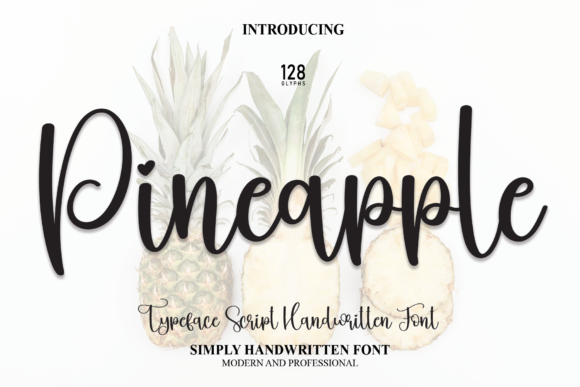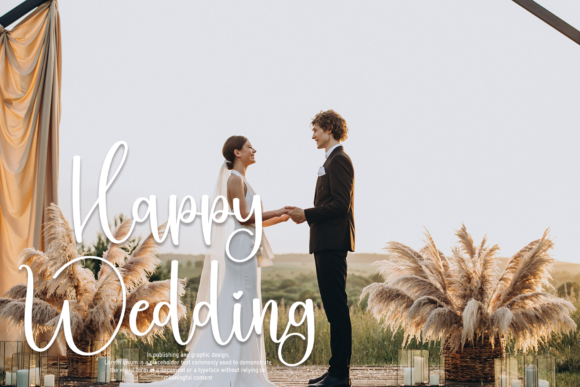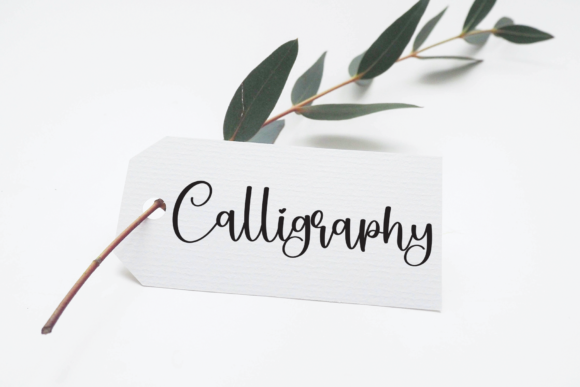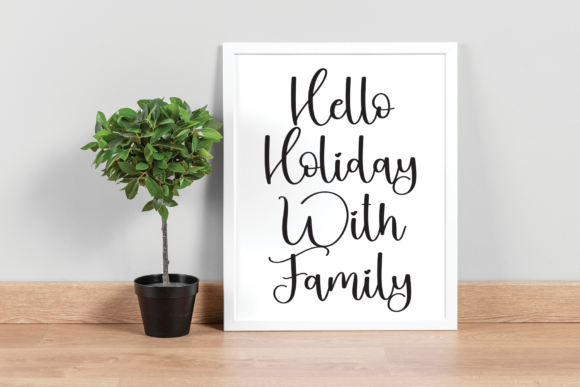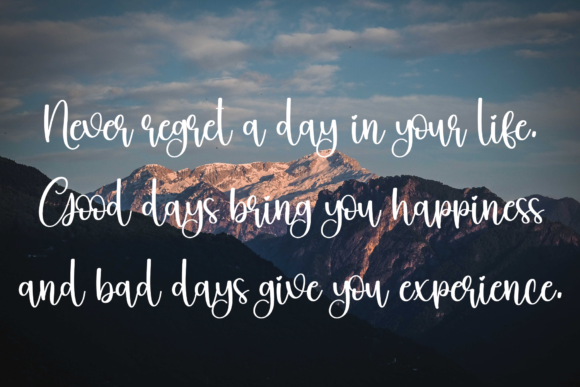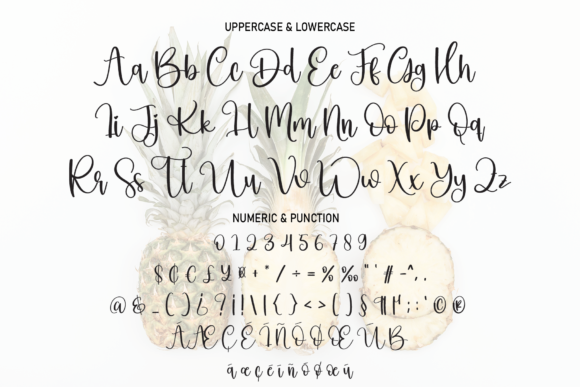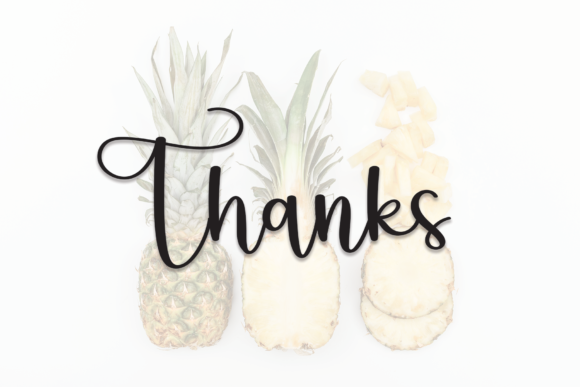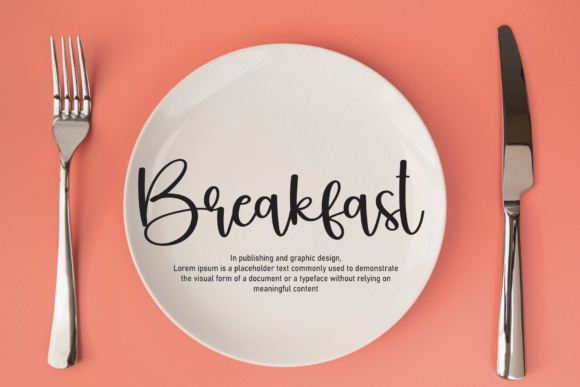
Pineapple Font
The Pineapple font is a delightful and versatile typeface, crafted for a wide array of design applications. With letters that exude a handwritten charm, this font is the perfect choice for enhancing the visual appeal of diverse projects. Whether you’re working on wall displays, wedding invitations, social media post logos, advertisements, product packaging, product designs, labels, photography, watermarks, invitations, stationery, or any project that demands a personalized touch, Pineapple effortlessly adds a tasteful and unique flair.
In the realm of wall displays, the Pineapple font brings a touch of character and authenticity, creating visually appealing presentations. For wedding invitations, its handwritten charm imparts a sense of warmth and individuality, setting the tone for a memorable event. In social media post logos, the font becomes a distinctive element that ensures brand recognition and a personalized touch.
When used in advertisements, Pineapple captures attention with its stylish and approachable handwritten aesthetic. In product packaging and designs, it adds a layer of craftsmanship and uniqueness, making the product stand out on the shelf. Labels benefit from the font’s ability to convey a sense of authenticity and creativity, while watermarks and photography applications showcase its versatility in various visual contexts.
Invitations and stationery projects are elevated by Pineapple, as it adds a touch of elegance and charm to the written word. Its versatility extends to any project that requires a handwritten taste, ensuring that the final result is not only visually appealing but also carries a personalized and authentic essence.
In summary, Pineapple is more than just a font; it’s a versatile tool that brings a handwritten taste to a multitude of design projects. Its adaptability makes it an excellent choice for creatives across different industries, allowing them to infuse their work with a unique and charming aesthetic. Incorporate Pineapple into your designs to bring a touch of elegance and handwritten flair, ensuring that your projects stand out with style and authenticity.